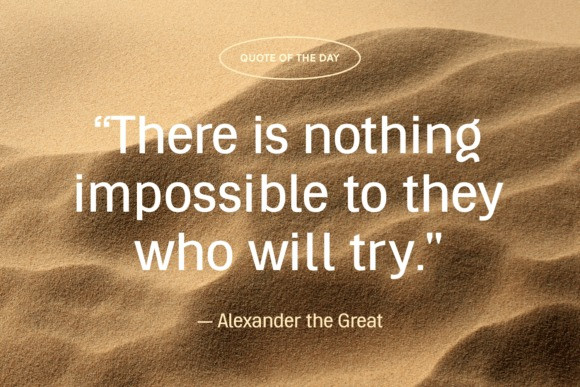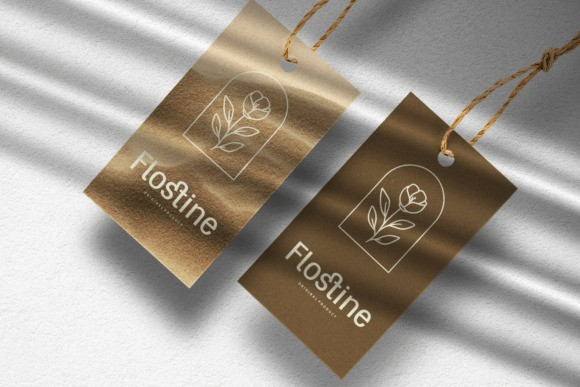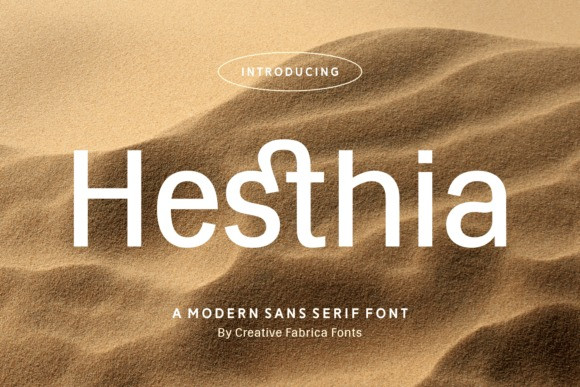
Hesthia Font
Hesthia Font is a sleek modern sans serif font that blends clean minimalism with unique design details, like its distinctive letter shapes that add a creative edge. Its smooth and contemporary look makes it perfect for branding, logos, editorial design, fashion projects, and digital media. With a balance of elegance and readability, Hesthia brings sophistication to every project.